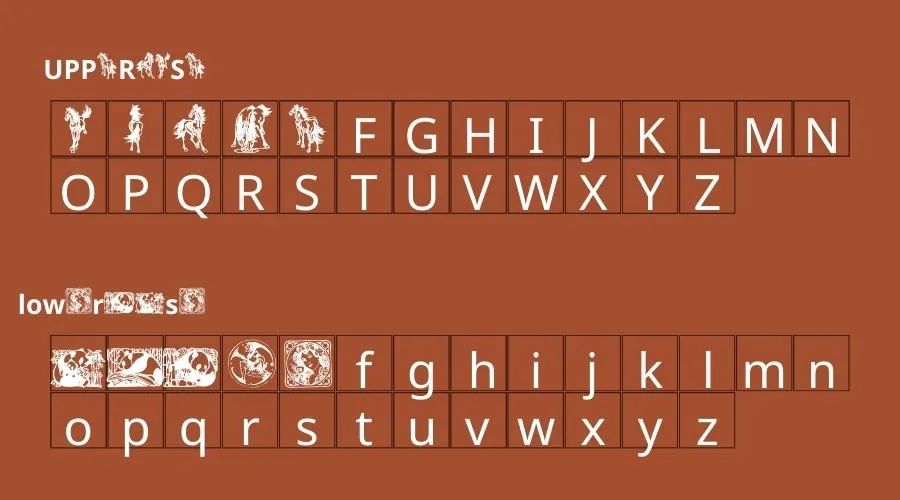
Fabeldyr 3 Font
About Fabeldyr 3 Font
The Fabeldyr 3 Font is the perfect choice for increasing the reputation of your projects. it was invented by a well-known graphic designer named Volker Busse. This typeface looks like a cartoonish texture look appearance.
The cartoon typeface family of this font allows for a variety of uses. For all of your creative ideas and projects, including social media posts, banners, posters, logo designs, printings, and numerous other tasks, it is the ideal option.
Name Fabeldyr 3 Font
Designer Volker Busse
Style Decorative
What type of font is Fabeldyr 3 Font?
The Fabeldyr 3 Font is the perfect choice for increasing the reputation of your projects. It has a stylish and modern shape of elements.
Where can I use the Fabeldyr 3 Font?
You can utilize the Fabeldyr 3 Typeface for video editing, adobe photoshop, canvas, Illustrator, and many more projects.
Who is the designer of Fabeldyr 3 Font?
It was invented by a well-known graphic designer named Volker Busse.